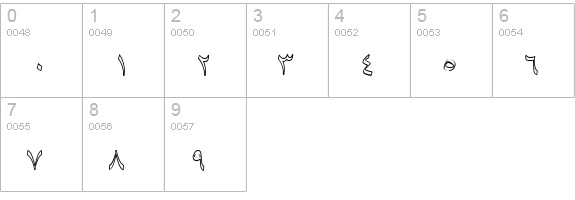
B Baran Outline Font Details
B Baran Outline font is a modern and stylish typeface that can add a touch of sophistication to any design project. With its clean lines and distinct outline style, this font is perfect for creating eye-catching headlines, logos, posters, and more. The sleek and elegant look of B Baran Outline font makes it a versatile choice for both print and digital designs. The best part? B Baran Outline font is available for free download at FontsMarket.com. So whether you're a professional designer looking for a new font to add to your collection or just someone who loves experimenting with different typefaces, B Baran Outline font is a great choice. Don't miss out on this opportunity to enhance your designs with this unique and beautiful font. Download it today and let your creativity shine!